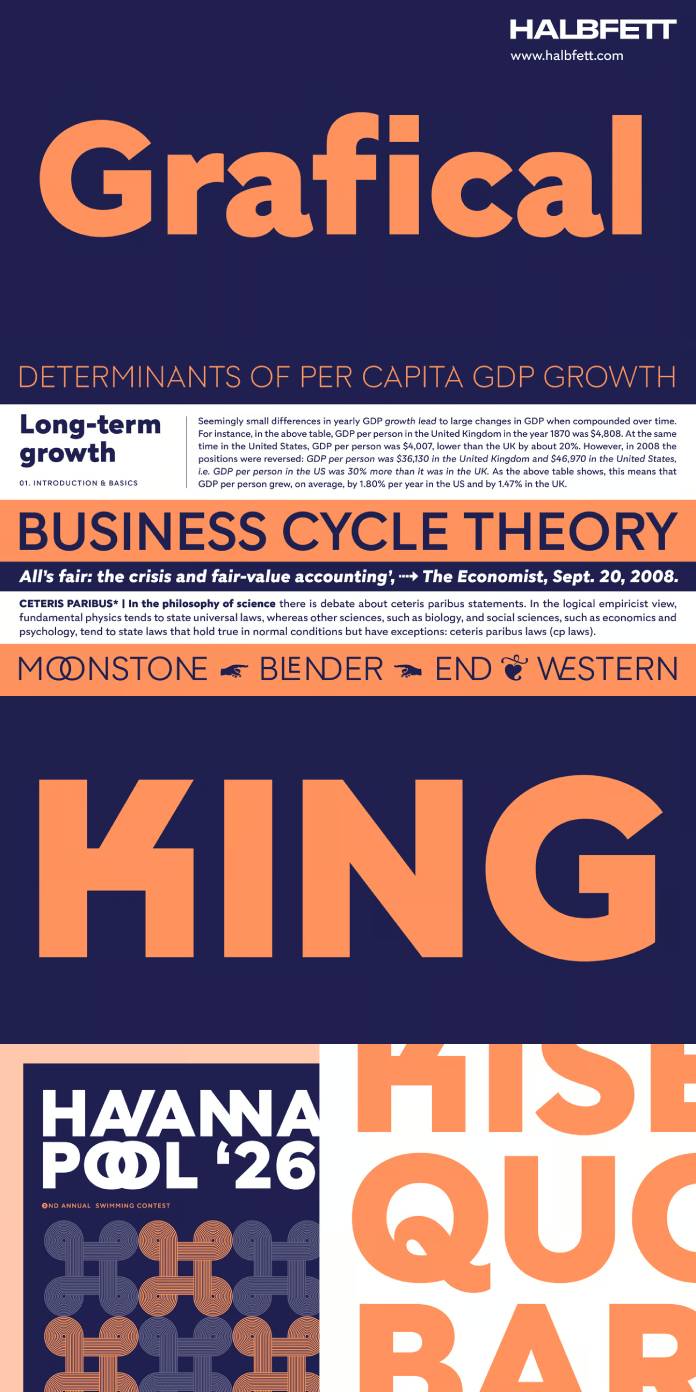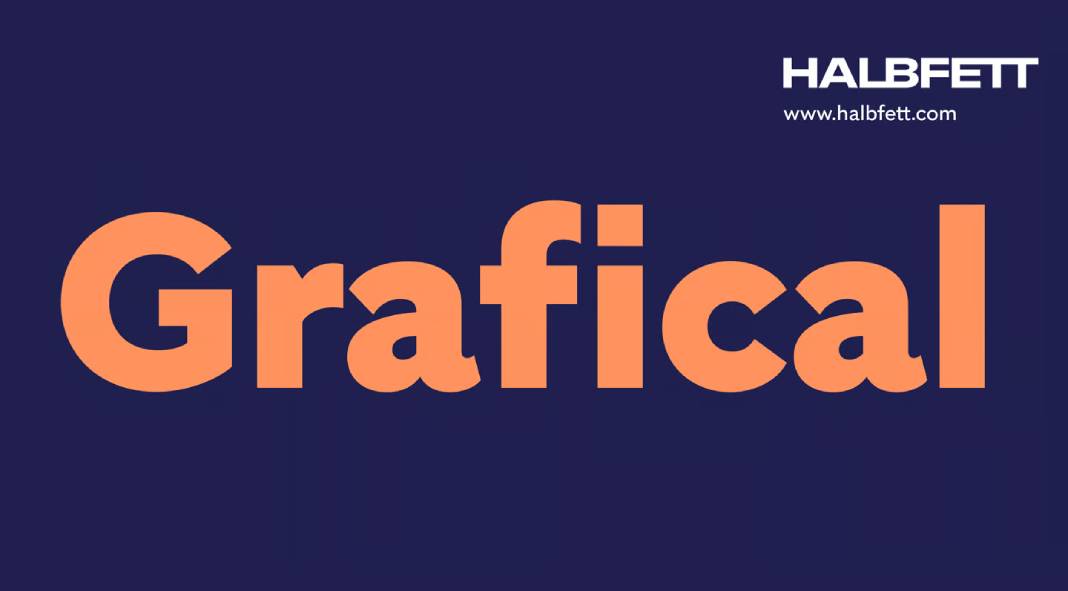
A Contemporary Marvel: Exploring Halbfett’s Grafical Font Family.
Typography is a realm where art and functionality harmoniously blend. In the Grafical font family by Halbfett, this balance is masterfully achieved through a contemporary reinterpretation of 19th-century sans serifs. Grafical exudes a refreshing modernity while retaining a nostalgic nod to its historical roots. In this detailed review, we will delve into the intricacies of this font family, exploring its design philosophy, versatility, and wealth of features that make it a typographic powerhouse.
Design Philosophy and Aesthetic: Grafical’s design philosophy is rooted in its aspiration to combine historical elegance with modern clarity. The 19th-century sans serifs, which served as its inspiration, have been reimagined with a contemporary twist. One of the most striking aspects is the amplification of geometric elements within the letterforms. These shapes have been thoughtfully streamlined, showcasing meticulous attention to detail.
Geometric Precision and Legibility: Grafical stands out not only for its aesthetic appeal but also for its unwavering commitment to legibility. The geometric forms within the letterforms have undergone meticulous optical correction to ensure optimal legibility in various contexts. This dedication to clarity is evident in every curve and line, resulting in a font family that effortlessly communicates across mediums.
Variable Fonts vs. Static OpenType Fonts: Grafical offers users two distinct installation options: the versatile Variable Fonts and the comprehensive static OpenType font files. The static fonts encompass an impressive range of weights, from the delicate Extralight to the commanding Black, each with corresponding upright and italic variations. This selection provides a well-rounded toolkit for various design projects.
For those seeking even greater control, the Variable Fonts option is a game-changer. With the Variable and Variable Italic weight axes, users can manipulate the stroke width to achieve nearly 1,000 font-weight possibilities. This level of precision empowers designers to fine-tune text appearances for both screen and print applications.
Versatility Across Design Mediums: Grafical’s versatility shines through in its applicability to a wide range of design mediums. Whether it’s web-based content, printed materials, or motion graphics, the font family seamlessly adapts to varying contexts. Its ability to maintain legibility across different platforms solidifies its role as an essential tool for contemporary design endeavors.
OpenType Features and Customization: Beyond its core design, Grafical stands out due to its robust support for OpenType features. The font family includes an array of typographic elements such as ligatures, proportional and tabular lining and oldstyle figures, fractions, numbers enclosed within circles, and even Roman numerals. This wealth of features empowers designers to infuse their work with depth and sophistication.
Character Alternates: Grafical takes personalization a step further by offering alternate versions of select characters. Users have the creative freedom to experiment with alternative forms of letters like “a,” “g,” “i,” “j,” “y,” “G,” and “Q.” This allows designers to imbue their projects with a unique touch while maintaining the font’s overarching aesthetic.
In the ever-evolving landscape of typography, the Grafical font family by Halbfett emerges as a contemporary masterpiece with deep-rooted historical influences. Its geometric precision, unwavering legibility, and versatile application make it a valuable asset across various design mediums. Whether you opt for the comprehensive static OpenType fonts or the transformative Variable Fonts, Grafical empowers designers to craft visually captivating and harmoniously legible content. With its rich assortment of OpenType features and customizable character alternates, Grafical elevates typography from a functional necessity to an artistic expression. This font family is, without a doubt, an indispensable tool for designers seeking to make their mark in the modern design landscape.